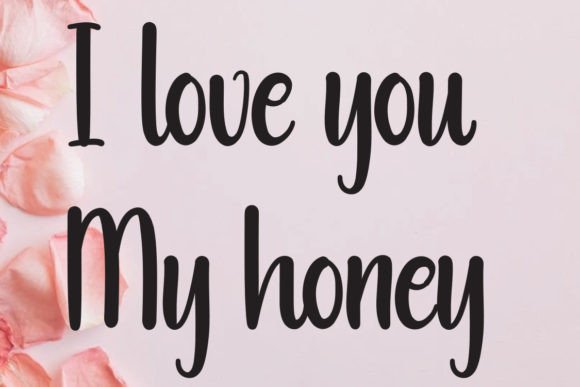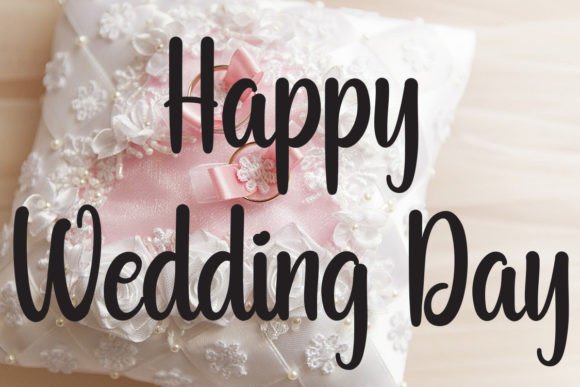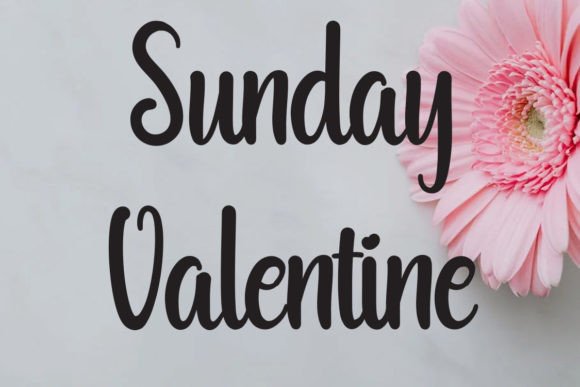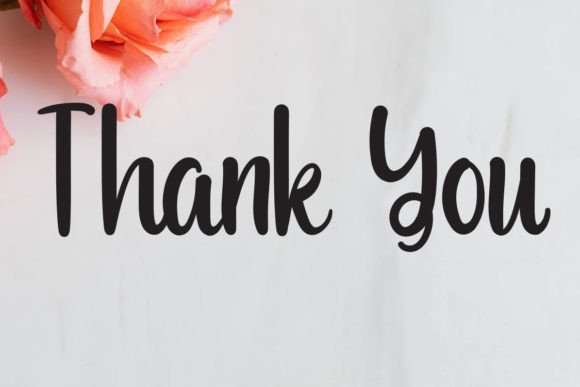
Introducing Happy Valentine Font: The Sweetest and Most Romantic Handwritten Font for Your Design Needs
Are you looking for a font that exudes love, care, and romance? Look no further than the Happy Valentine Font! This beautiful, handwritten font is perfect for designers and crafters who want to add a touch of sweetness and elegance to their projects. With its delicate flow and charming character, Happy Valentine Font is ideal for a wide range of applications, from wall displays and wedding invitations to social media post logos and more.
What Makes Happy Valentine Font So Special?
Happy Valentine Font is a unique and captivating font that boasts a distinctive, hand-crafted look. Its delicate flow and carefully designed characters make it perfect for creating beautiful, eye-catching typography that will leave a lasting impression on your audience. Whether you’re designing a romantic wedding invitation, a lovely wall display, or a charming social media post, Happy Valentine Font is sure to add a touch of magic to your project.
Key Features of Happy Valentine Font
• Sweet and Romantic Design: Happy Valentine Font features a beautiful, handwritten design that’s perfect for creating romantic and sweet-themed projects.
• Delicate Flow: The font’s delicate flow makes it ideal for creating elegant and sophisticated typography.
• Handwritten Style: The font’s handwritten style gives it a personal and unique touch that’s perfect for adding a human element to your designs.
• Versatile: Happy Valentine Font can be used for a wide range of projects, from wall displays and wedding invitations to social media post logos and more.
Happy Valentine Font is a must-have for designers and crafters who want to create beautiful, professional-looking projects that showcase their creativity and skill. With its unique and captivating design, Happy Valentine Font is perfect for:
• Wedding Invitations: Create beautiful, romantic wedding invitations that will set the tone for the big day.
• Wall Displays: Design stunning wall displays that will add a touch of elegance and sophistication to any room.
• Social Media Post Logos: Create eye-catching social media post logos that will help your brand stand out from the crowd.
• Crafting Projects: Use Happy Valentine Font to add a personal touch to your crafting projects, such as handmade cards, gift tags, and more.
Tips for Using Happy Valentine Font
To get the most out of Happy Valentine Font, here are a few tips to keep in mind:
• Pair it with Other Fonts: Experiment with pairing Happy Valentine Font with other fonts to create a unique and eye-catching look.
• Use it for Headlines: Use Happy Valentine Font for headlines and titles to add a touch of elegance and sophistication to your designs.
• Experiment with Colors: Try out different colors and color combinations to see what works best with Happy Valentine Font.
In conclusion, Happy Valentine Font is a beautiful, romantic, and versatile font that’s perfect for designers and crafters who want to add a touch of sweetness and elegance to their projects. With its delicate flow, charming character, and wide range of applications, Happy Valentine Font is a must-have for anyone looking to create stunning, professional-looking designs. So why wait? Download Happy Valentine Font today and start creating your own beautiful, romantic designs!